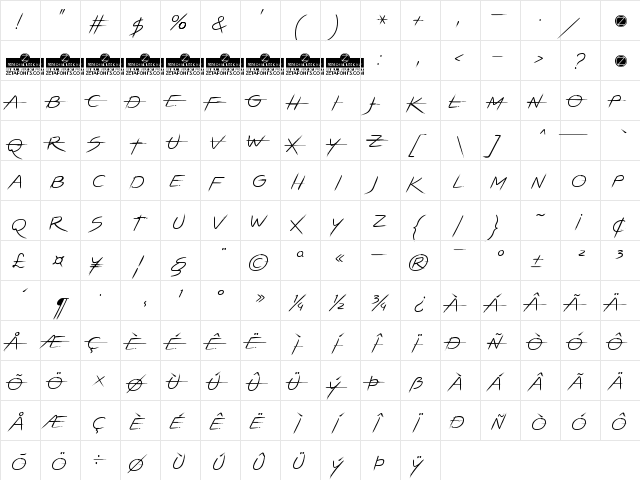
LIGHTSTRIKE Regular
| Foundry | Studio kmzero |
| Designer | Francesco Canovaro |
Design Context for LIGHTSTRIKE Typeface
LIGHTSTRIKE takes a measured approach to typography — its balanced proportions and neutral character make it a reliable workhorse for both digital and print work. Its slender proportions lend an understated elegance to any composition.